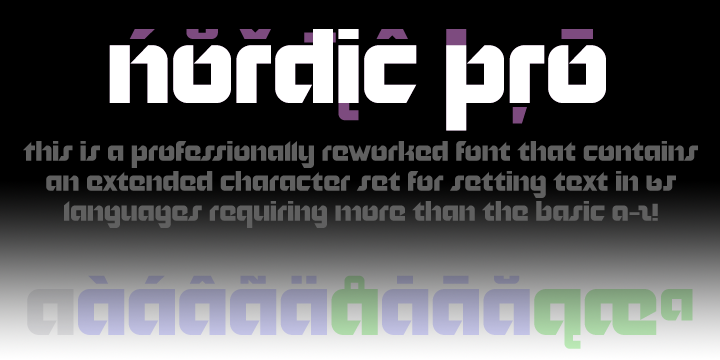
NORDIC PRO
Nordic Pro is a display font published by CheapProFonts.
A very solid, square and sturdy font, but with some special and quirky details.
A very solid, square and sturdy font, but with some special and quirky details. It is perfect for logos and trademarks - and now supporting many more languages.